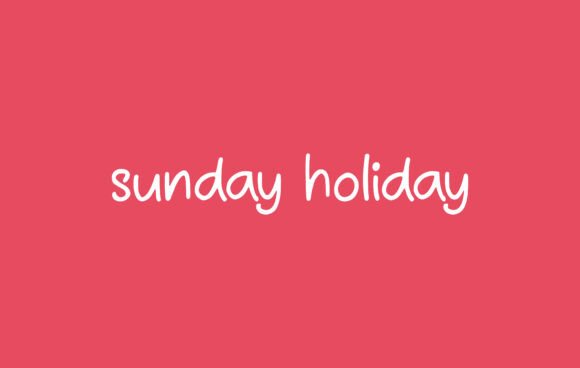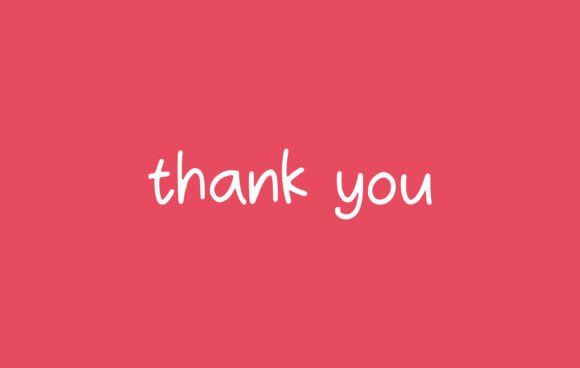
The Conkerberry Font: A Romantic Touch for Your Creative Projects
I’ll never forget the time I was working on a wedding invitation design for a close friend. I had the perfect layout, the ideal color scheme, and a clear vision of what I wanted to achieve. However, I was stuck on one thing: the font. I scrolled through my font library, but nothing seemed to fit the romantic and whimsical vibe I was going for. That’s when I stumbled upon the Conkerberry font. It was love at first sight! 💕
Conkerberry font is an authentic handwritten font with a romantic touch, expertly designed to be a true favorite among designers, crafters, and creative hobbyists. Its legibility and versatility make it perfect for a wide range of designs, from magazine headlines and social media posts to branding, wedding invitations, cards, and more.
An Honest Review of Conkerberry Font
What I Love About Conkerberry Font ✨
- 💫 Unique and authentic handwritten style with a romantic touch
- ✅ Highly legible, making it perfect for both title and body text
- 🎨 Versatile and suitable for various design projects, including digital and print materials
- 👍 Easy to read, even in smaller font sizes
While Conkerberry font is an excellent choice for many design projects, there are a few things to keep in mind:
- 🤔 Some users may find the font a bit too ornate for very formal or traditional designs
- ⚠️ The font’s uniqueness may not make it the best choice for very long body text, as it may become overwhelming to read
A Practical Guide to Using Conkerberry Font
- Experiment with OpenType features, such as ligatures and stylistic alternates, to add more personality to your text
The Story Behind Conkerberry Font
Conkerberry font was designed with love and care by a talented type designer who wanted to create a font that would capture the essence of romance and whimsy. Inspired by traditional handwriting and calligraphy, Conkerberry font is a unique and authentic addition to any design project.
Q: What is the Conkerberry font best used for?
A: Conkerberry font is perfect for designs that require a romantic and whimsical touch, such as wedding invitations, social media graphics, and branding.
Q: Is Conkerberry font legible?
A: Yes, Conkerberry font is highly legible, making it suitable for both title and body text.